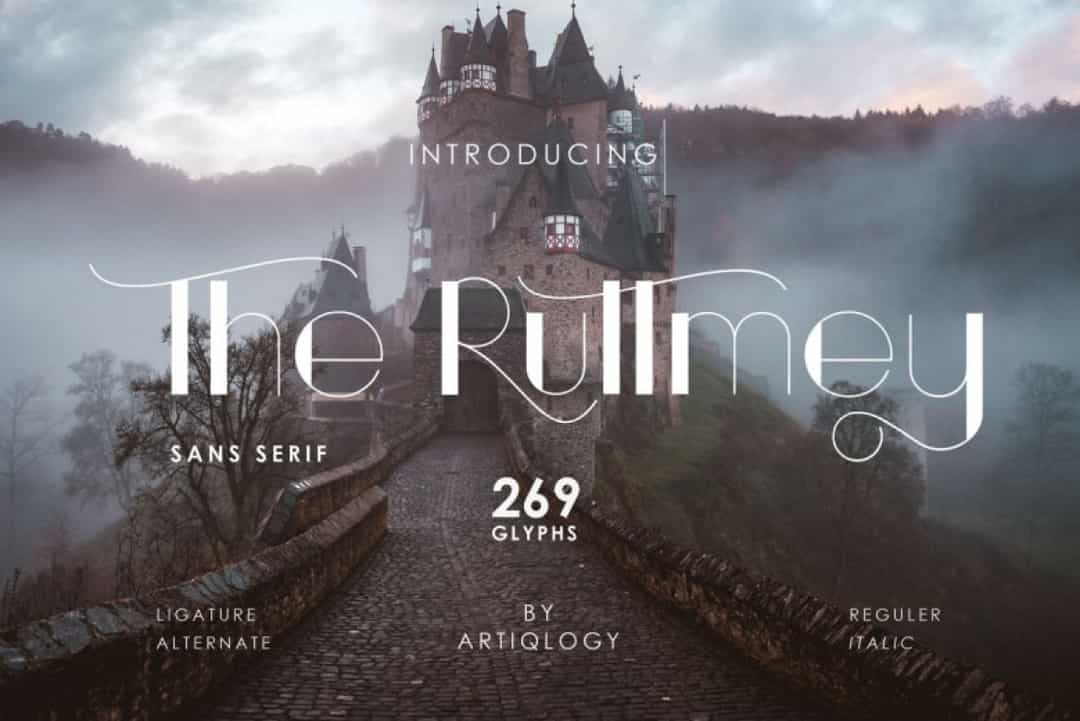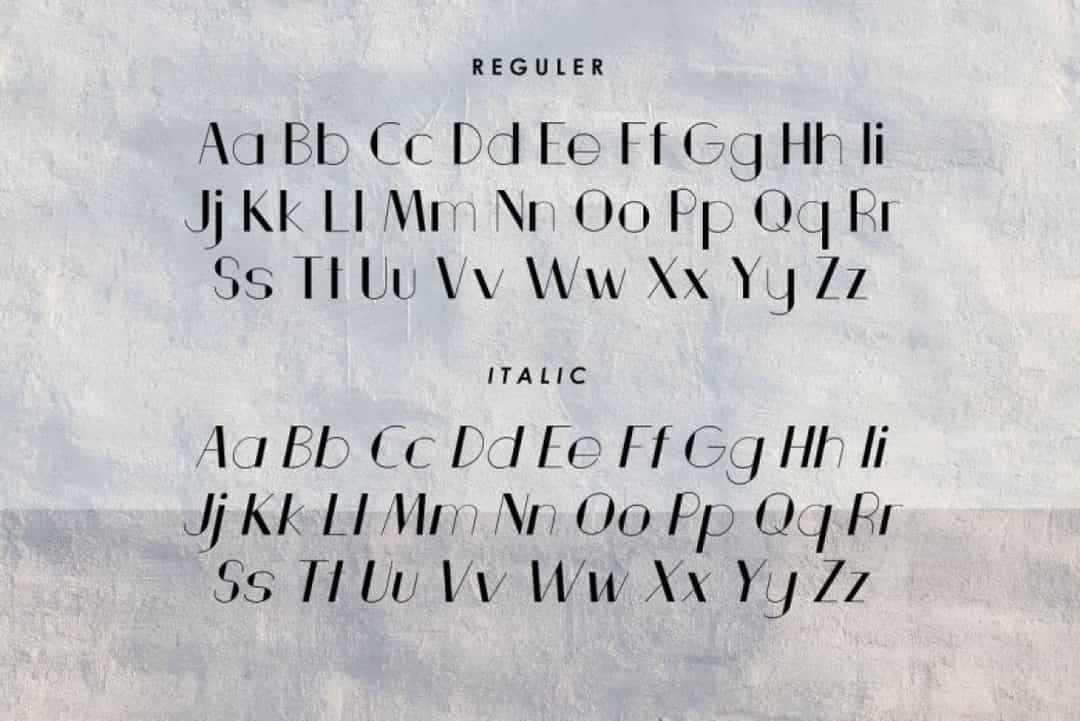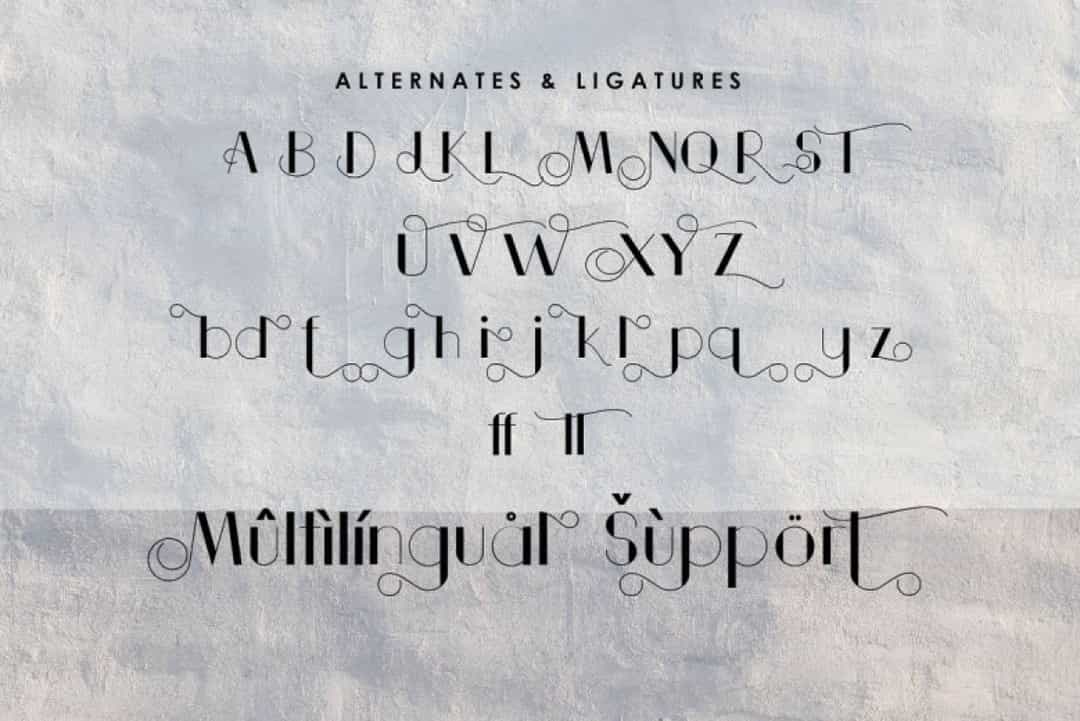
Ruttmey is an elegant and expressive sans-serif font with an attractive lettering design, making it stand out in both formal and casual designs. Perfect for posters, logos, affiches, T-shirt printing and magazine printouts featuring attractive typographic designs; plus many other projects!